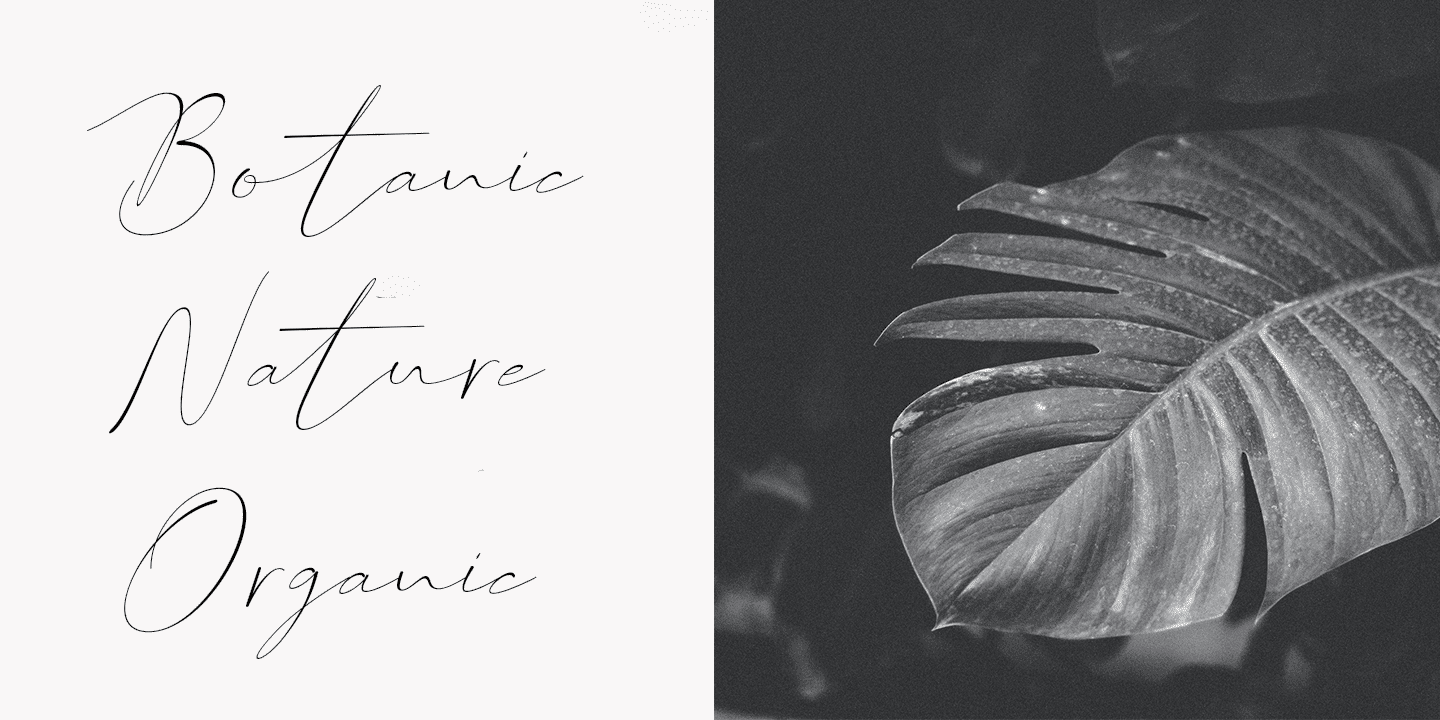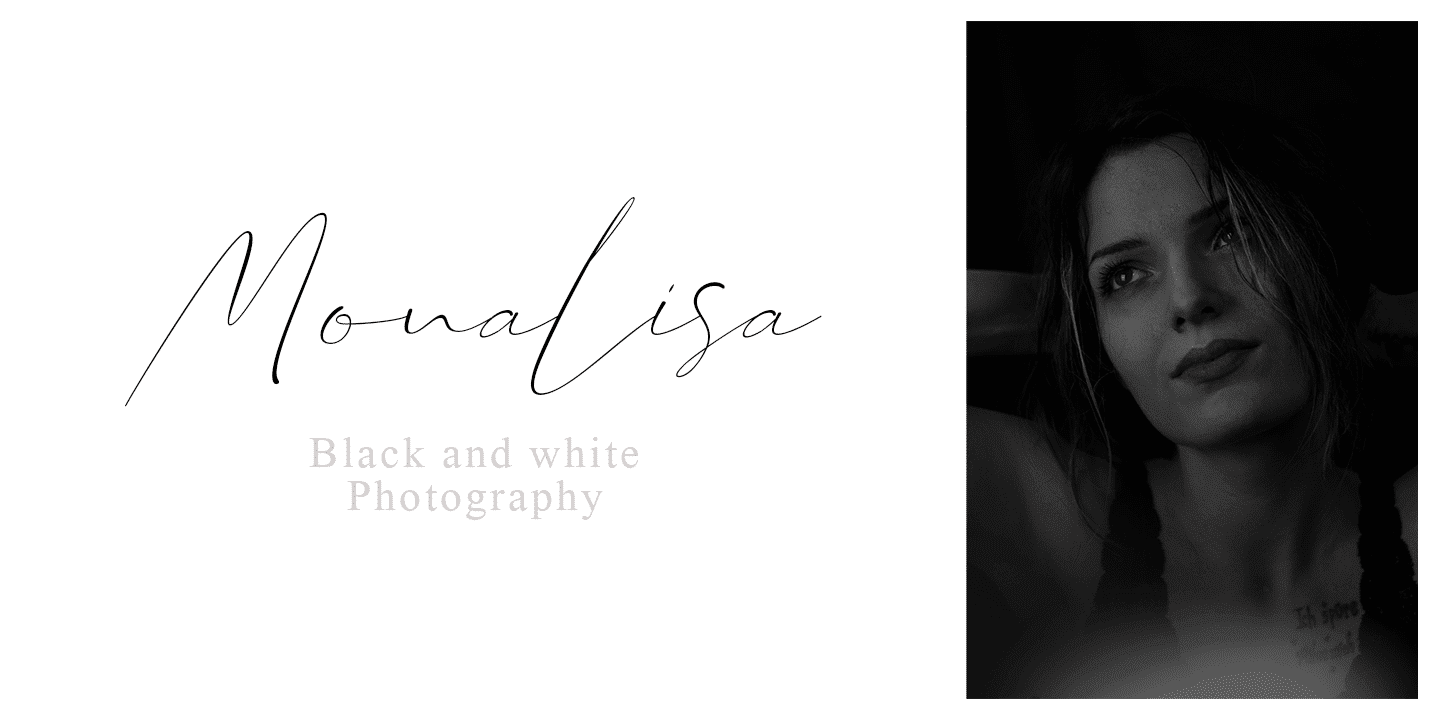
England Signature Font
England Signature Font. It has a fresh, modern, and natural handwriting style that will add a distinctive touch to your perfect design. This font is very suitable for branding, because we complete it with a number of alternatives that allow you to make it a feminine and masculine logo, and a few signs to add to the tightness of the signature, for the binding to present the impression of natural handwriting.